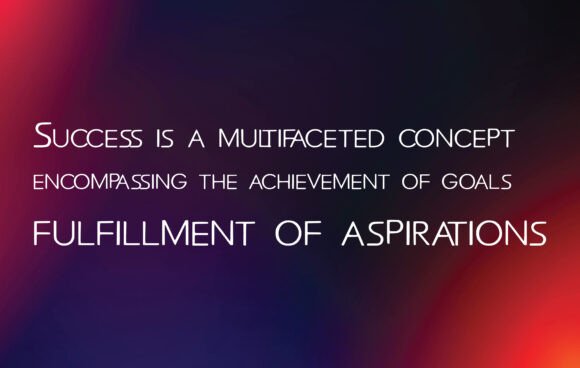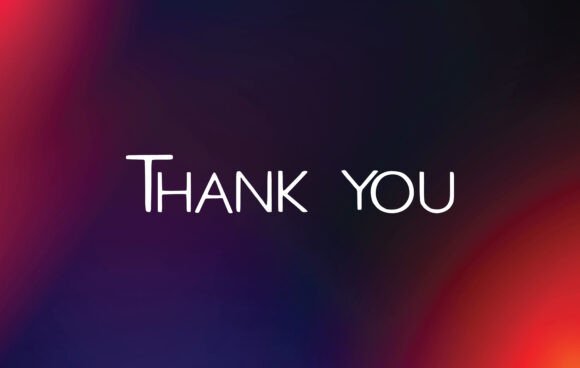
Introducing Adriel Font: Elevate Your Creative Projects with Elegance
Are you on the lookout for a font that can add a touch of sophistication and elegance to your creative projects? Look no further than Adriel Font, a lovely and beautiful handwritten font that has the potential to take your ideas to new heights. In this article, we’ll dive into the features and benefits of Adriel Font, and explore how it can be the perfect choice for designers and crafters looking to create stunning visual content.
The Beauty of Adriel Font
Adriel Font is a meticulously crafted handwritten font that exudes a sense of luxury and refinement. Its elegant strokes and flowing lines make it perfect for creating eye-catching logos, branding materials, and quotes that demand attention. Whether you’re working on a personal project or a client’s brief, Adriel Font is sure to impress with its unique charm and character.
Key Features of Adriel Font
• Handwritten Elegance: Adriel Font boasts a beautiful, handwritten aesthetic that’s perfect for adding a personal touch to your designs.
• Versatile: This font is incredibly versatile, making it suitable for a wide range of creative projects, from logos and branding to quotes and social media graphics.
• Easy to Read: Despite its elegant nature, Adriel Font remains highly legible, ensuring that your message is conveyed clearly and effectively.
• Scalable: Adriel Font performs beautifully at various sizes, from large headings to smaller body text.
Why Choose Adriel Font?
So, what sets Adriel Font apart from other fonts in its category? Here are just a few reasons why designers and crafters are falling in love with this beautiful font:
• Unique Character: Adriel Font has a distinct personality that can help your designs stand out in a crowded marketplace.
• Time-Saving: With Adriel Font, you can create stunning visual content quickly and efficiently, saving you time and effort in the design process.
• High-Quality: This font is crafted with precision and attention to detail, ensuring that it meets the highest standards of quality and performance.
Using Adriel Font in Your Designs
Adriel Font is incredibly easy to use and can be applied to a variety of design projects. Here are some ideas to get you started:
• Logos and Branding: Create a lasting impression with a custom logo or branding materials that showcase your business’s personality and style.
• Quotes and Social Media Graphics: Add a touch of elegance to your quotes and social media graphics, making them perfect for sharing on platforms like Instagram and Facebook.
• Stationery and Packaging: Elevate your stationery and packaging designs with Adriel Font, adding a level of sophistication and refinement to your products.
• Is Adriel Font suitable for body text? While Adriel Font is primarily designed for headings and titles, it can be used for body text in certain contexts. However, for optimal readability, we recommend using it for larger text sizes.